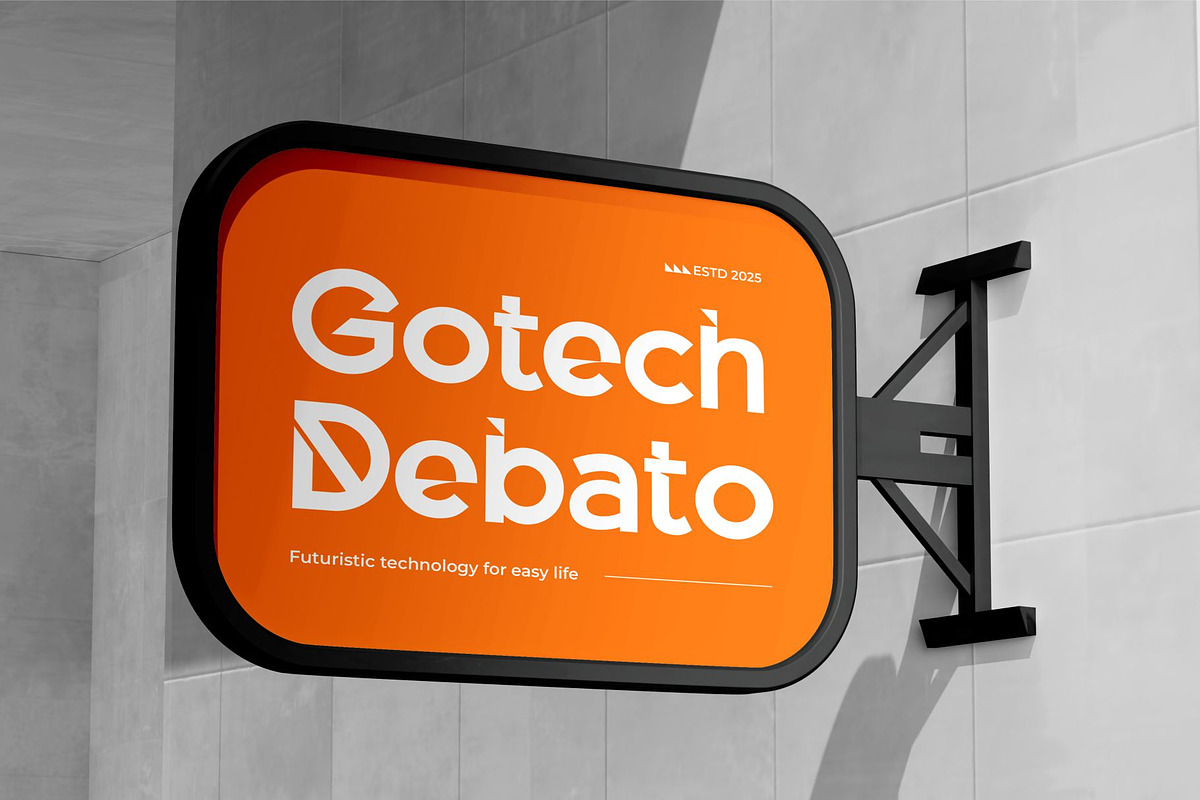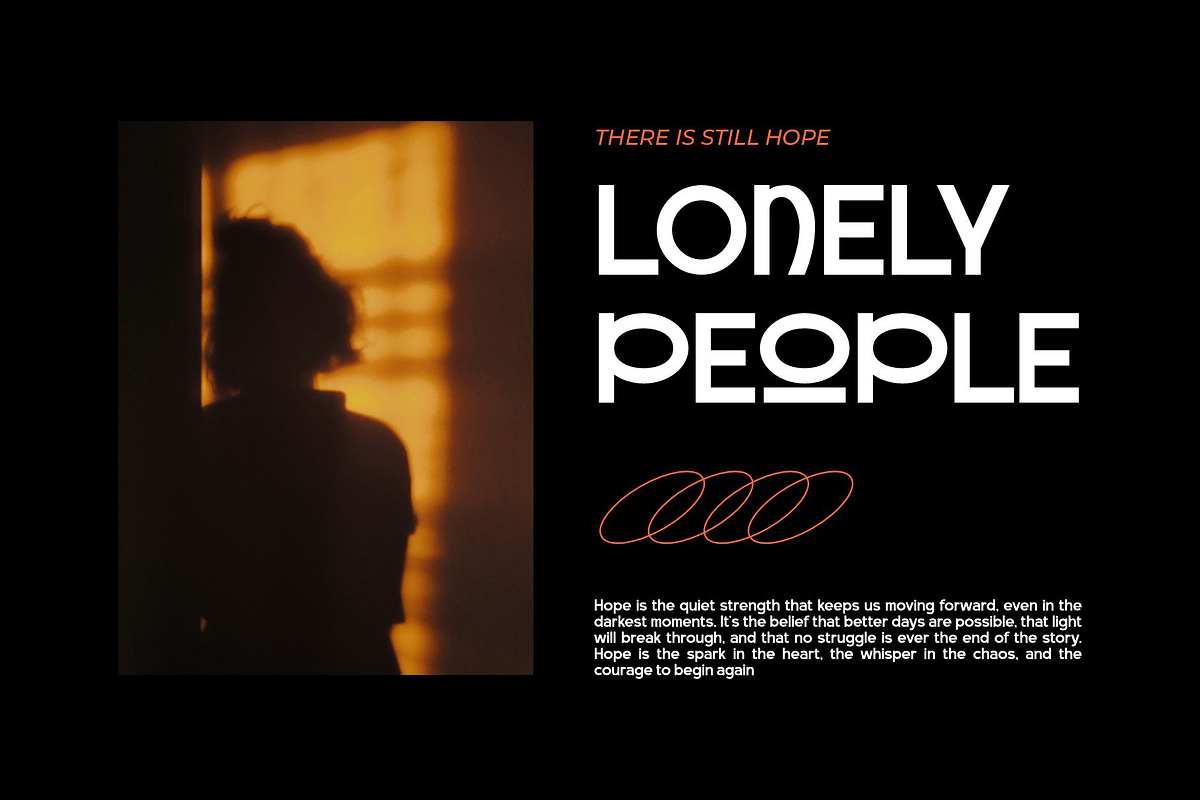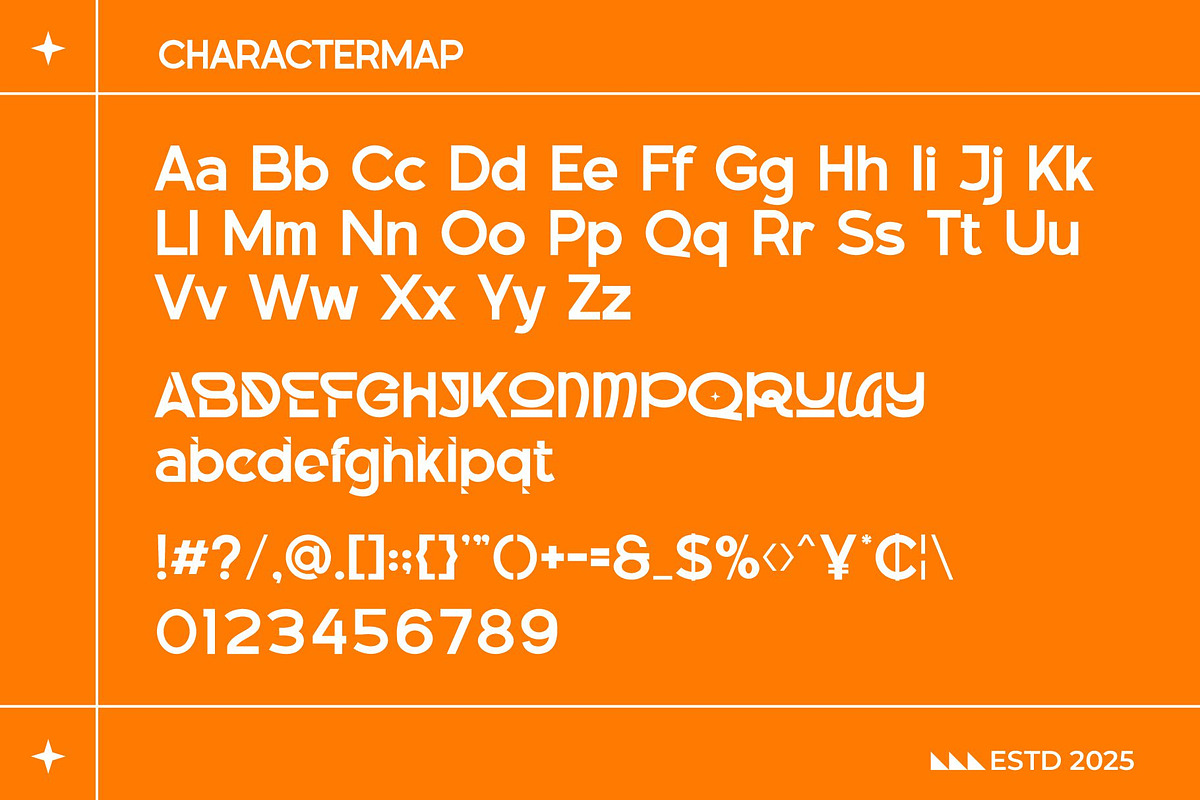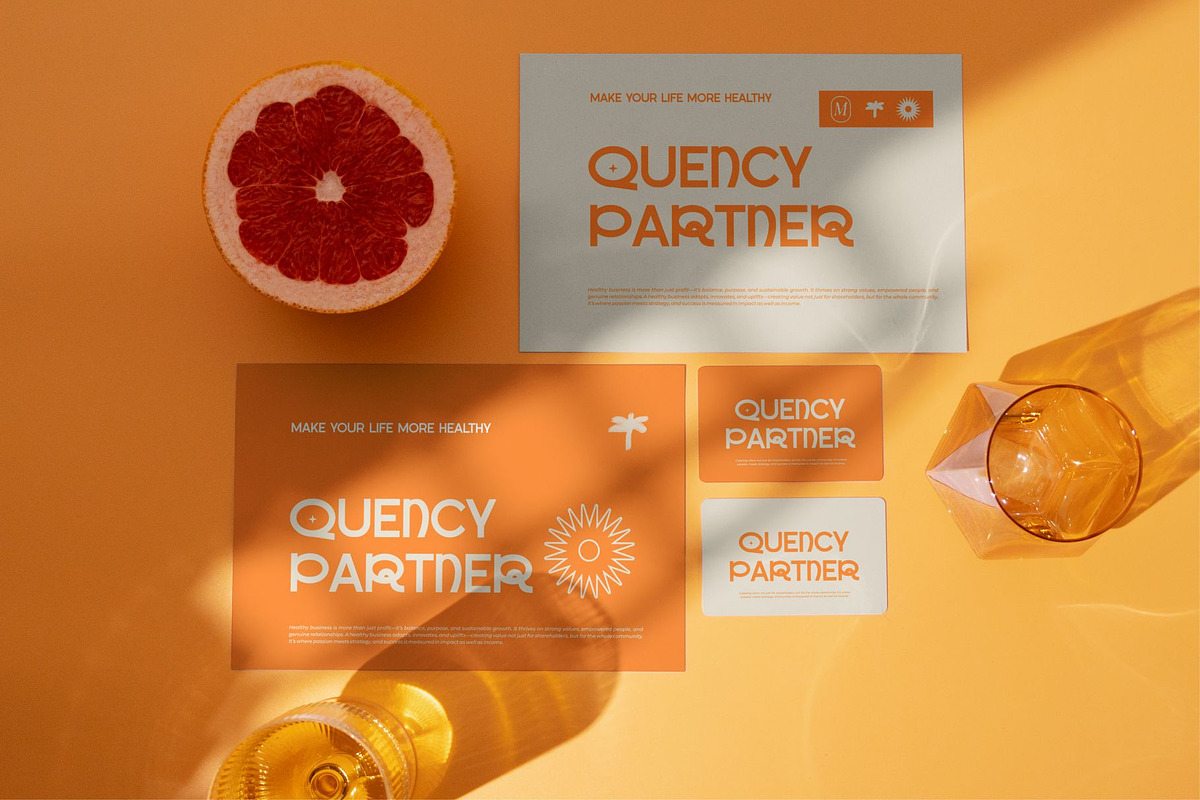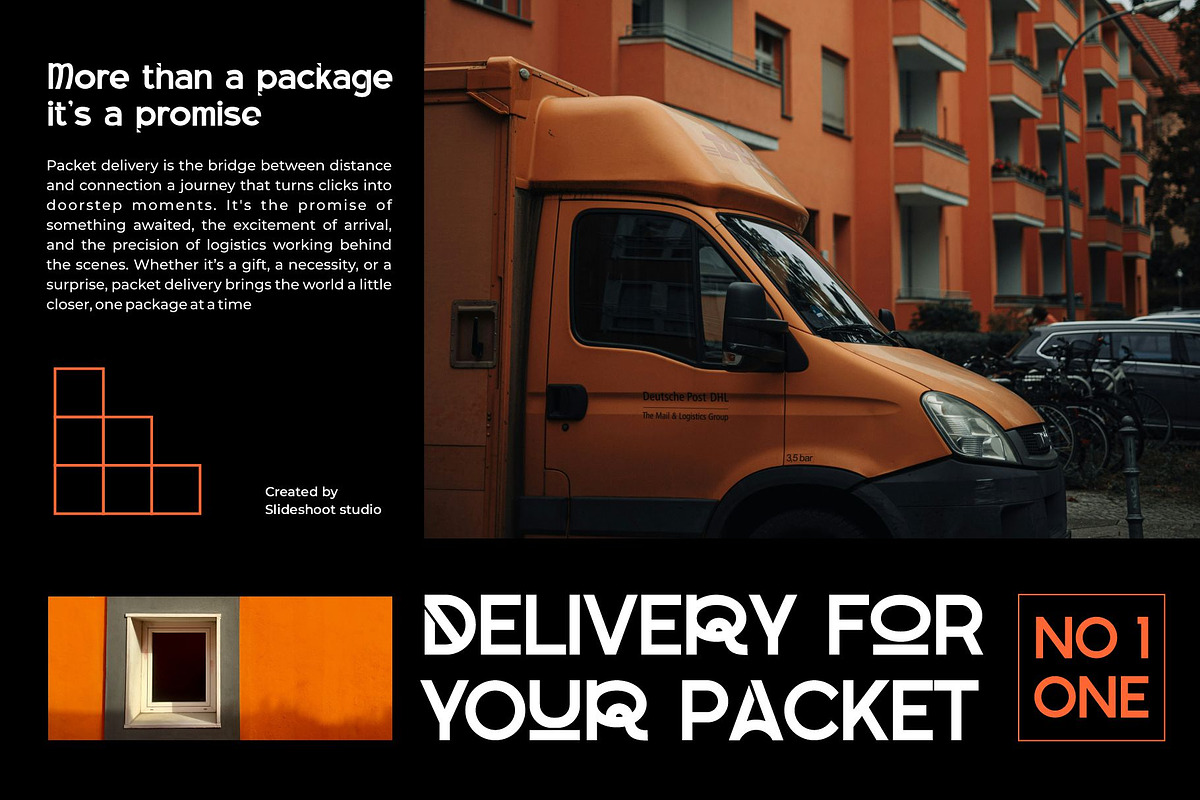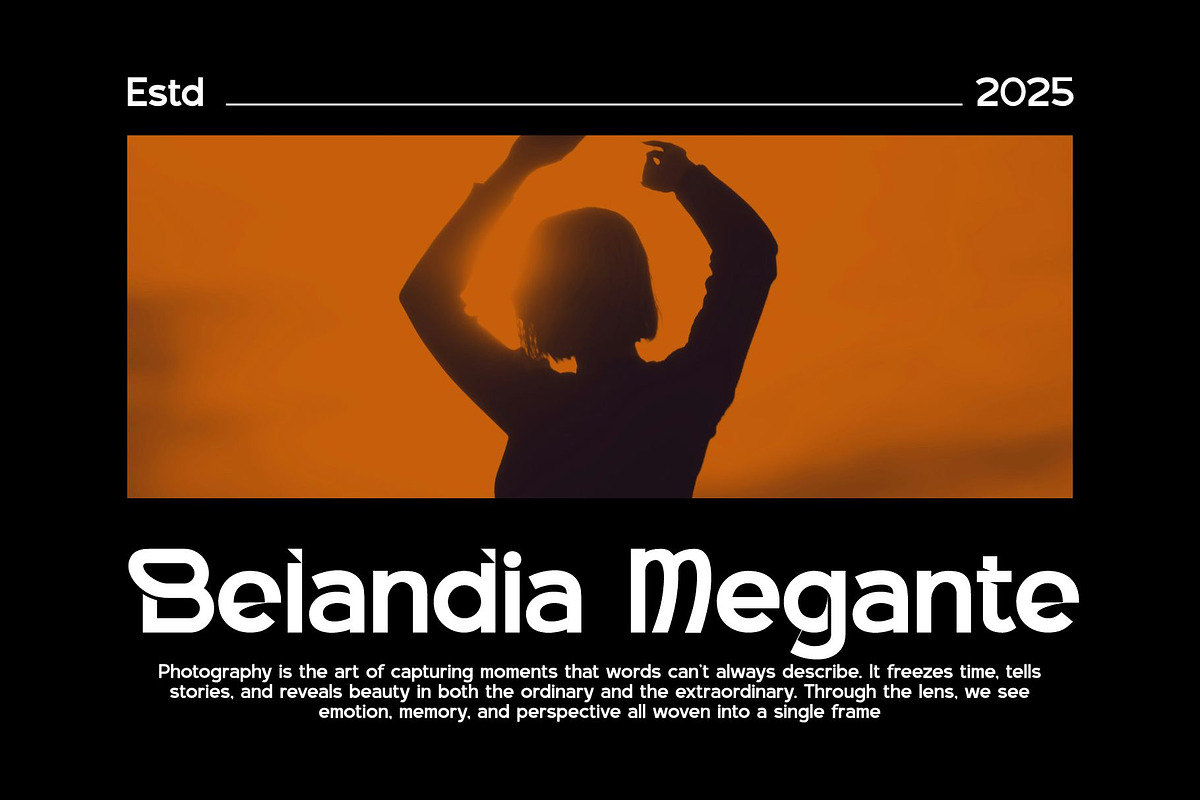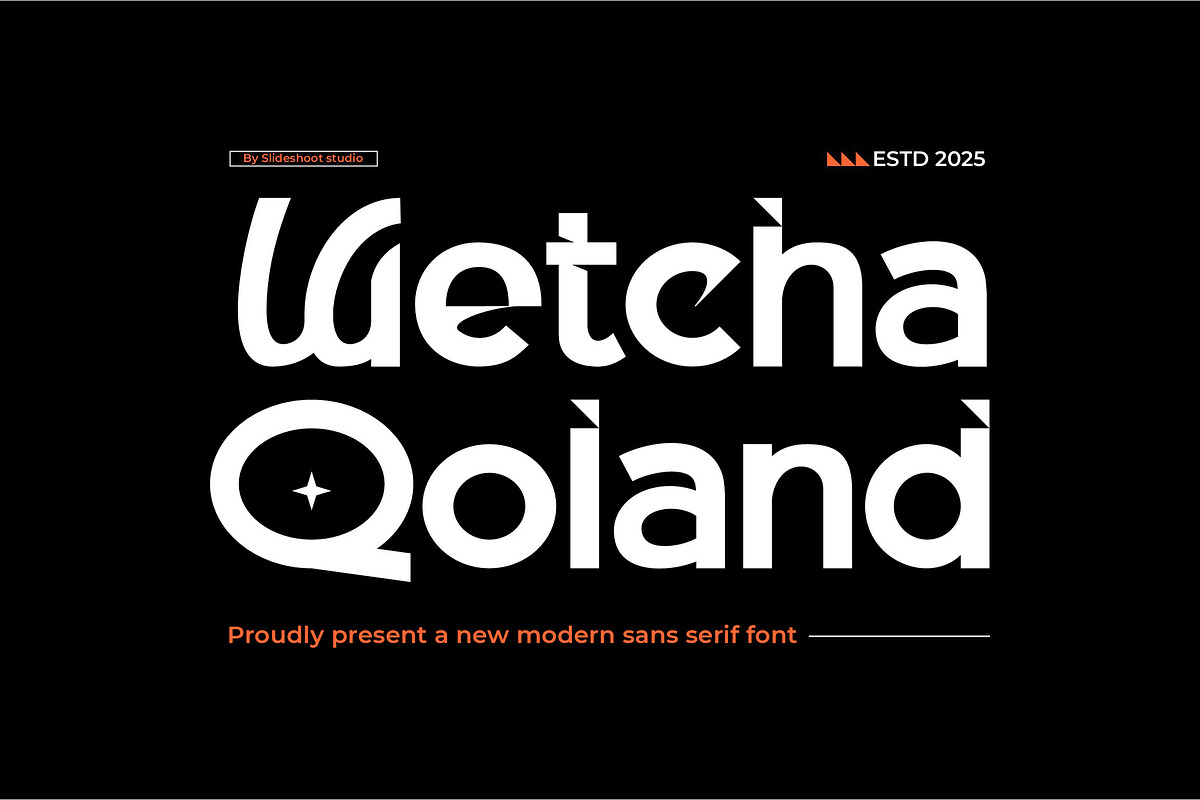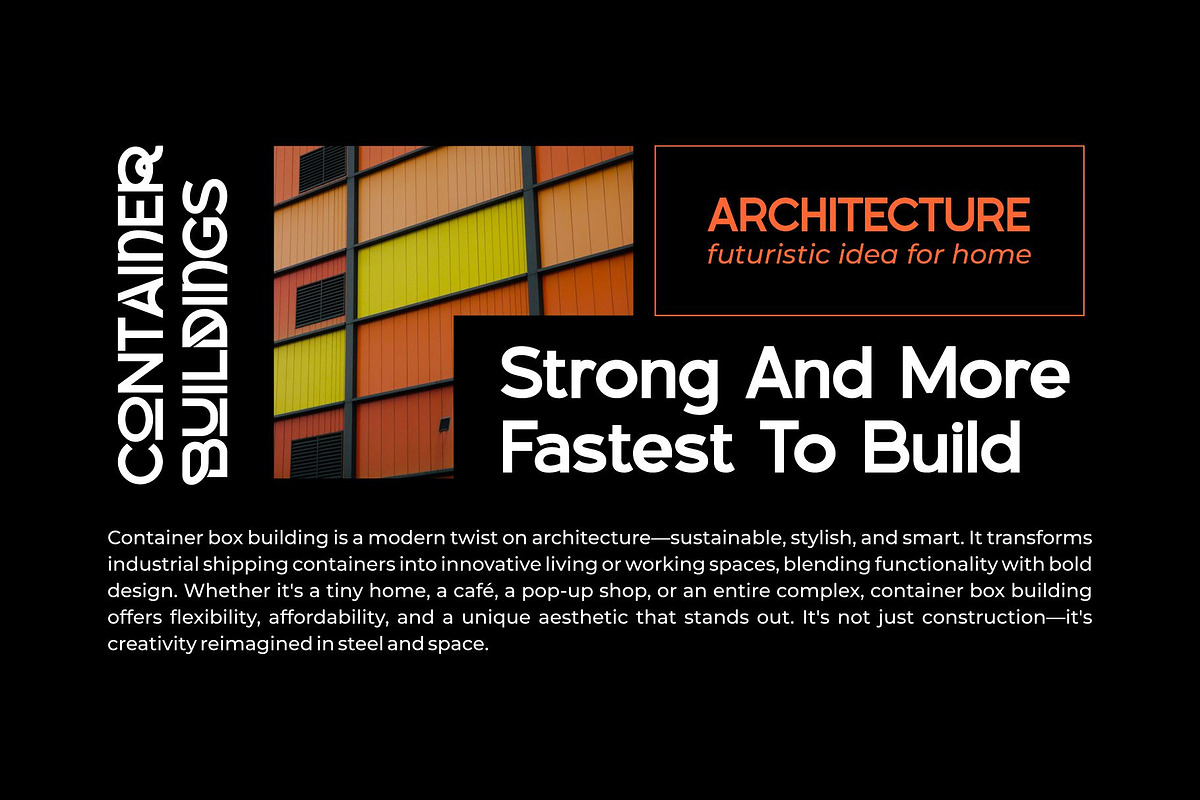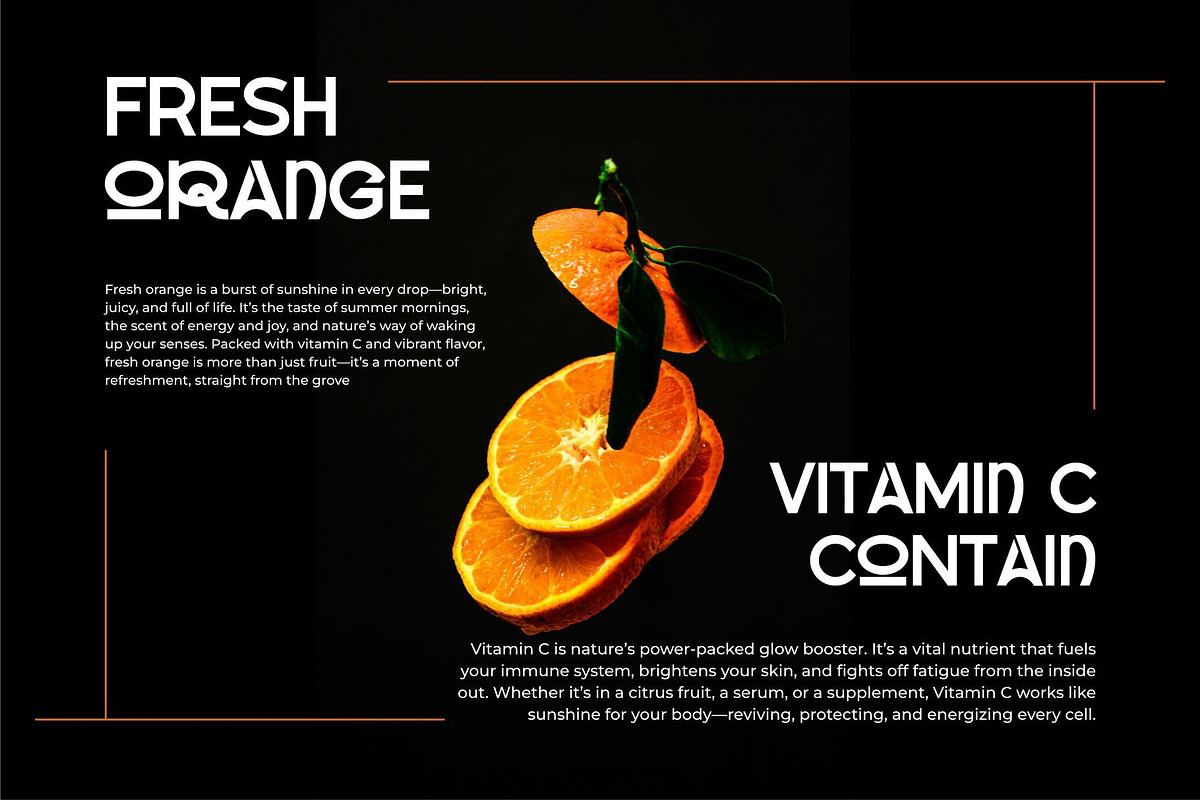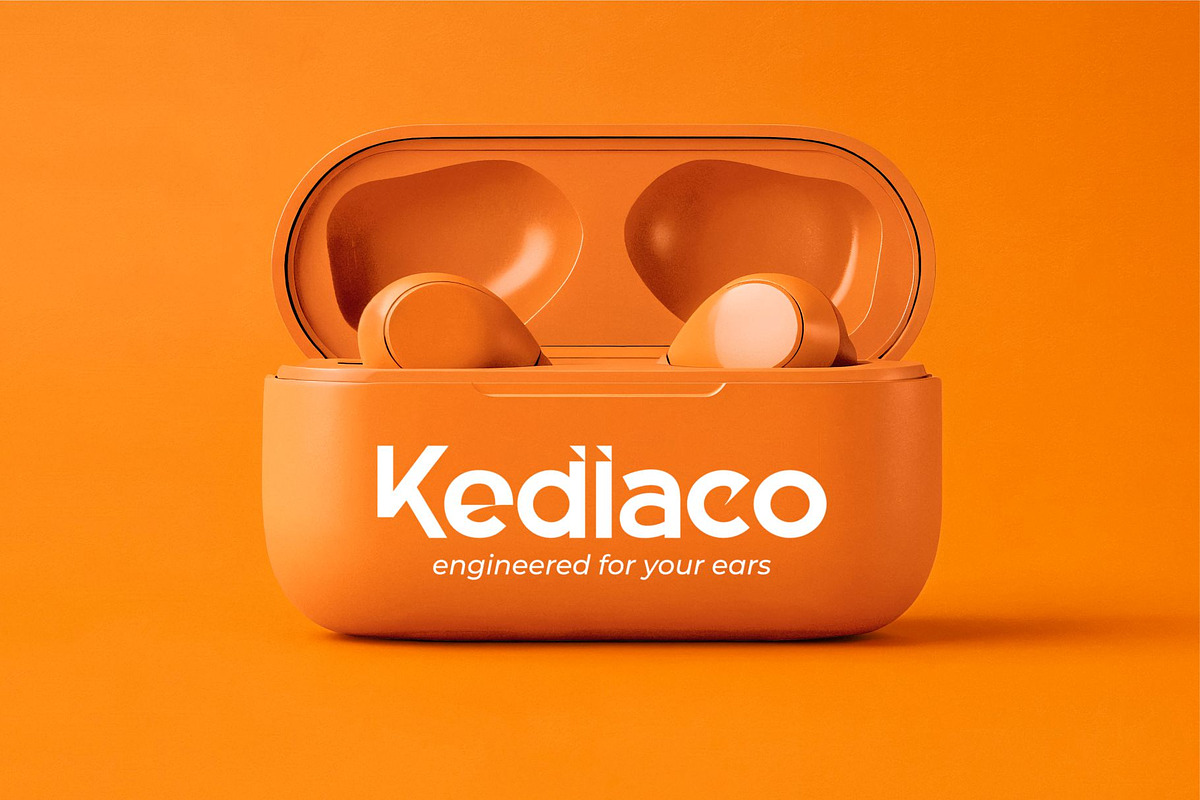
Wetcha Qoland || Modern Sans Serif F
Introducing Wetcha Qoland is a modern sans serif font, trendy, bouncy and cute display font. It has a unique character with wood theme. It is perfect to be combined with invitation card designs, company logos, movie titles, movie names, business cards, book titles, brand names and various other designs.